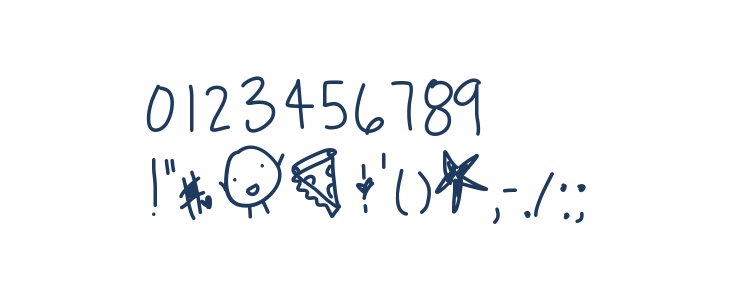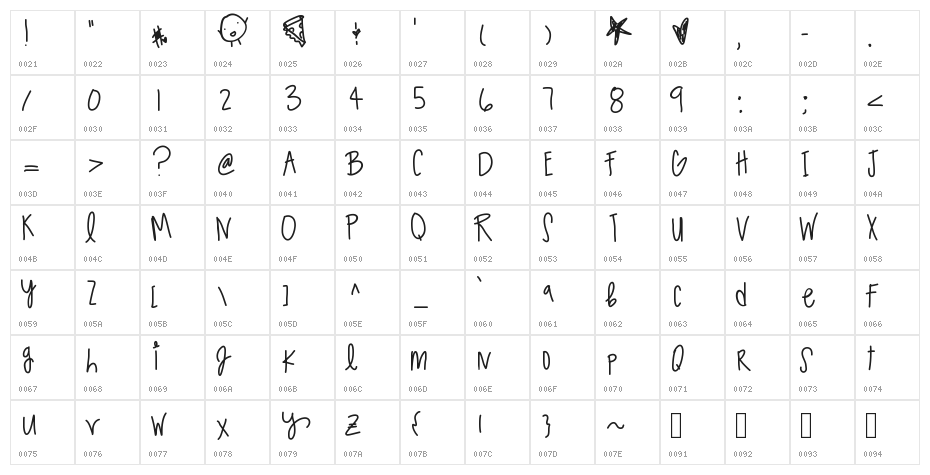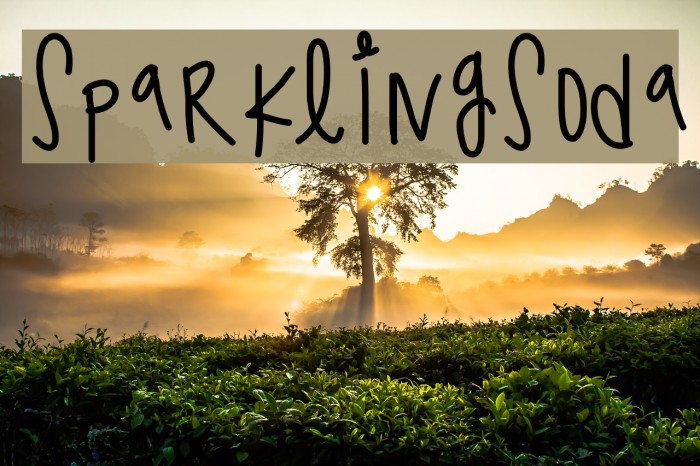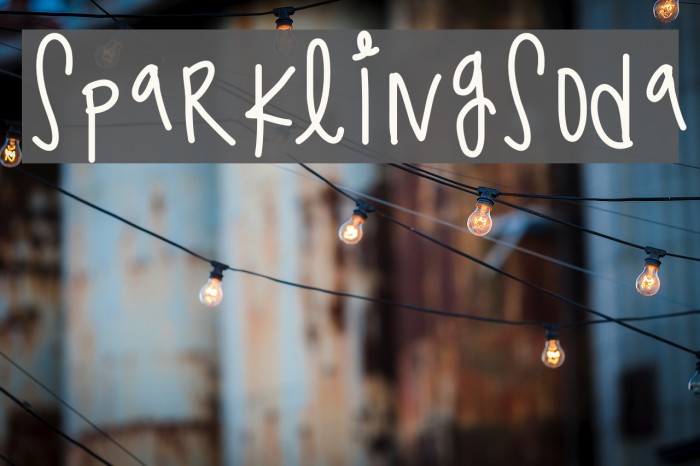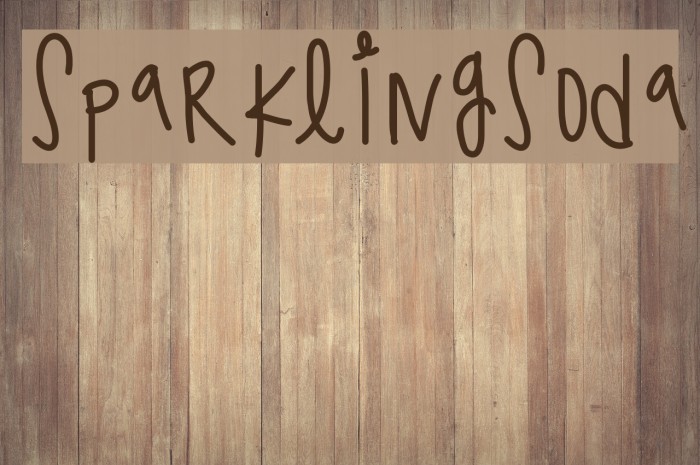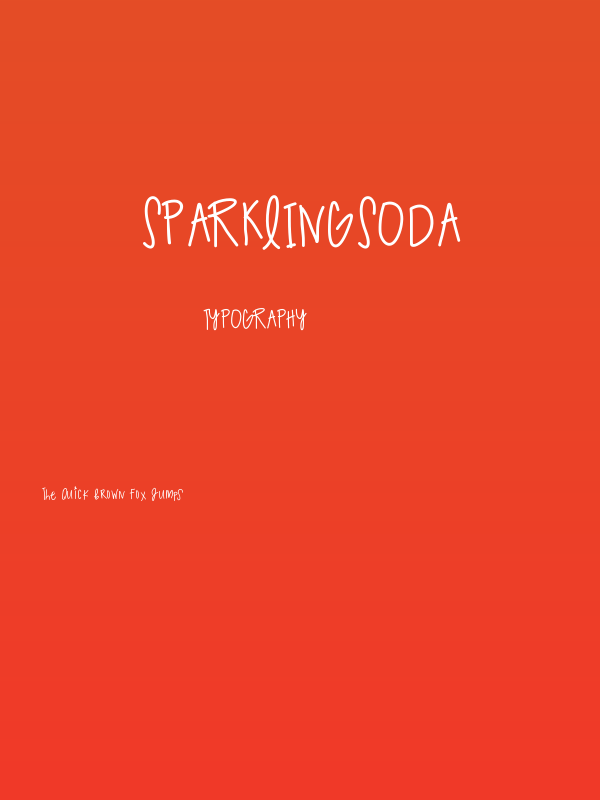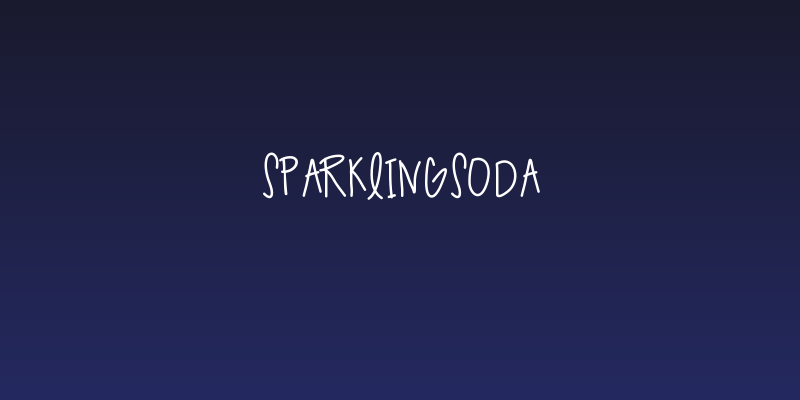
SparklingSoda Font
SparklingSoda Description
This font exudes a playful and whimsical charm, characterized by its hand-drawn, casual style. The letters are unevenly sized and spaced, giving it a lively and informal appearance. The uppercase and lowercase letters maintain a consistent flow, with rounded edges and a slightly tilted orientation that adds to its quirky personality. Numbers and special characters follow the same playful theme, with unique and imaginative designs that enhance the font's overall appeal. This font is perfect for projects that require a fun and approachable aesthetic, making it ideal for creative and informal applications.
| Use Case | Headlines, Logos, Informal text |
| Proposed Projects | Ideal for children's books, greeting cards, playful branding, and creative social media graphics. |